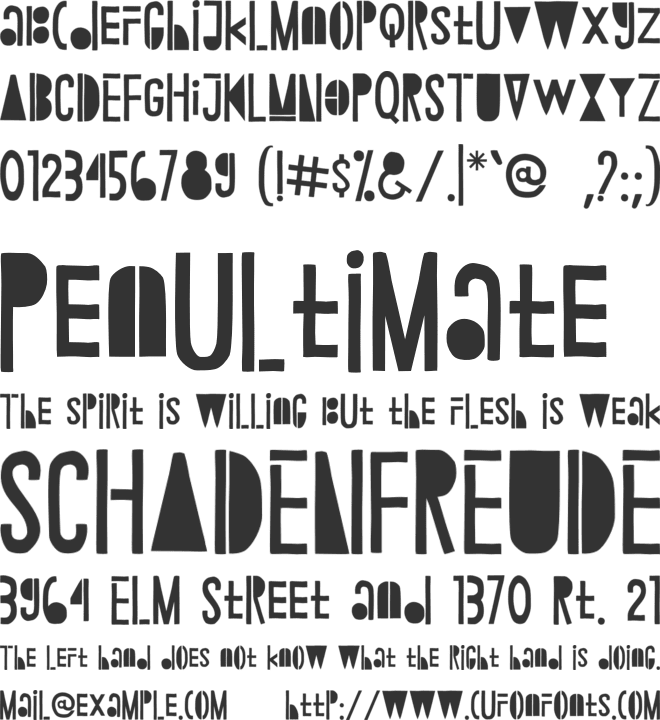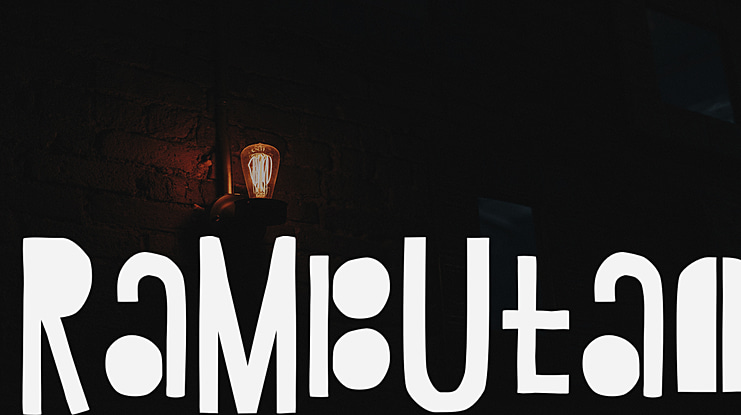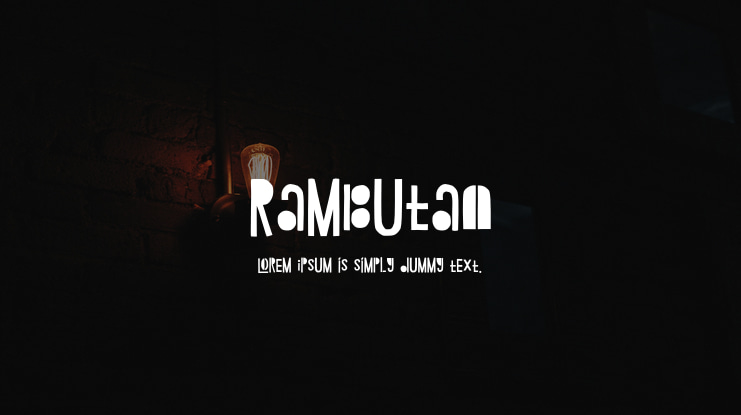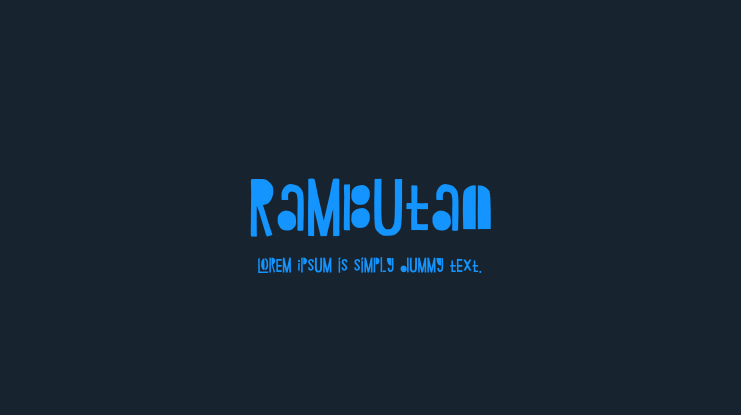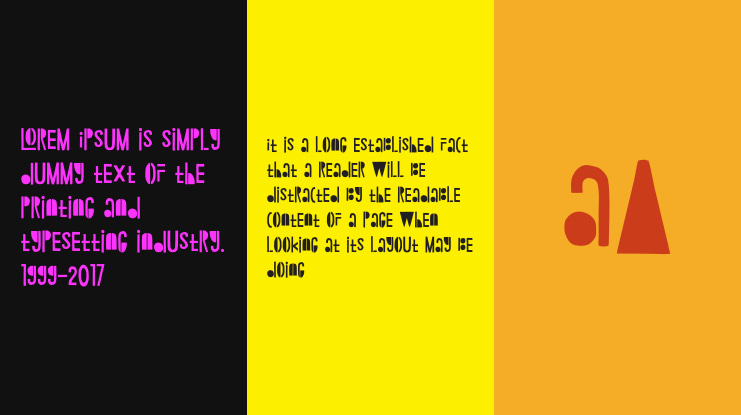
Rambutan Font
The Rambutan is a playful font. Mix and match the uppercase and lowercase letters to create an unique design, every time you use it.
The Rambutan is perfect for logos, quotes, clothing, book covers and more!